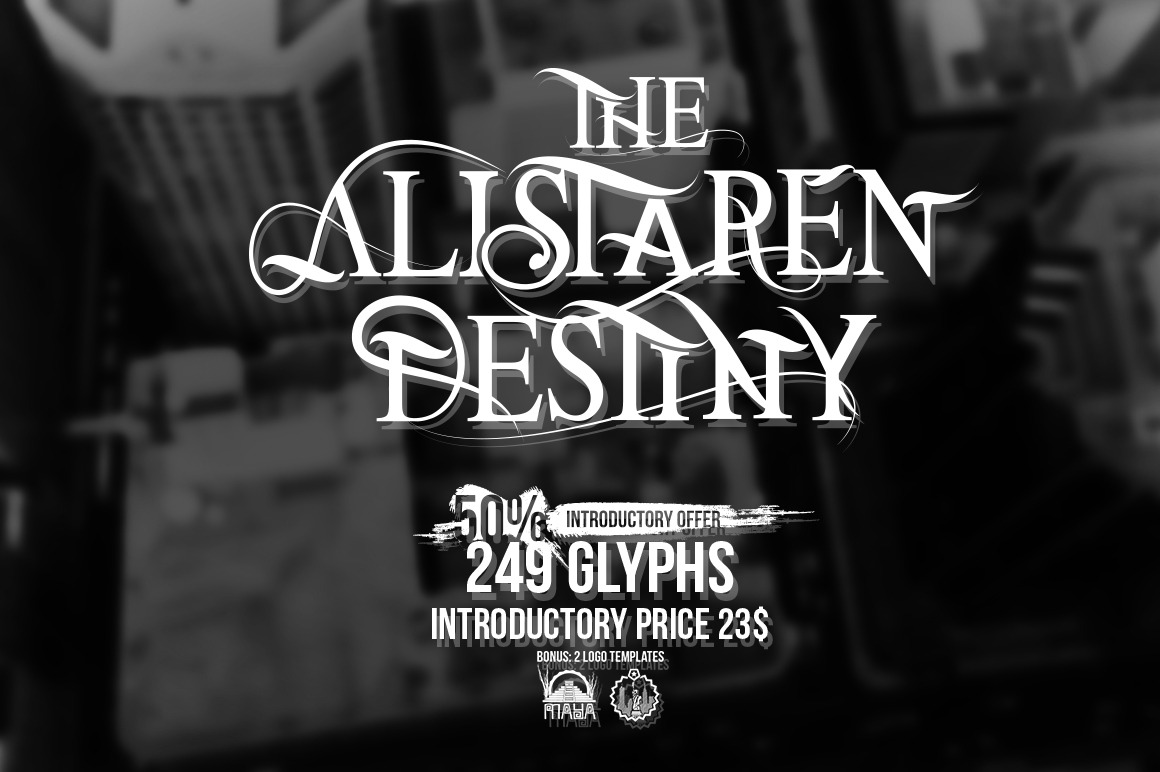
Font | The Alistaren - 50% Off!
Font has 249 Glyphs.
What you see is NOT what you get. I paid $23.oo for a specific font and what I downloaded looked nothing like what I paid for. I ordered "The Alistaren" font - very decorative “in the illustration” but what arrives is a very normal type of Arial font. Ridiculous and after ordering and the download I cannot get a refund. I’m furious. Deceptive.